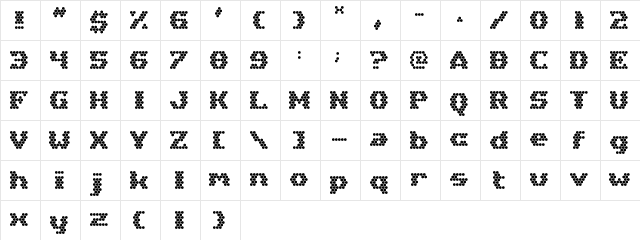
Hex Girlfriend Regular Free Font
Hex Girlfriend Regular
Designer: Andrew McCluskey
Design Context for Hex Girlfriend
Hex Girlfriend is a composed and adaptable typeface that performs quietly and consistently across a wide range of design contexts.
Pro Tip: Use Hex Girlfriend in both headline and body roles to test its range before committing to a single application.